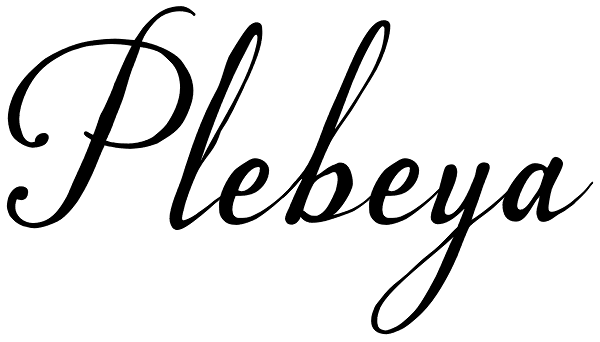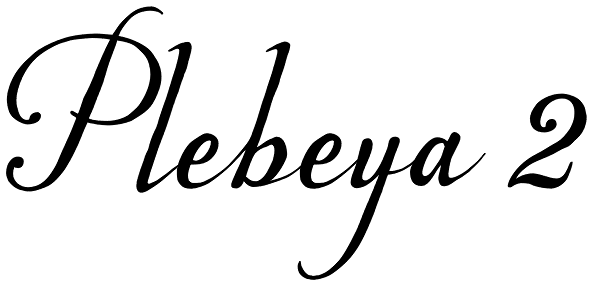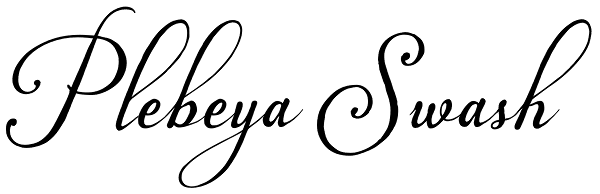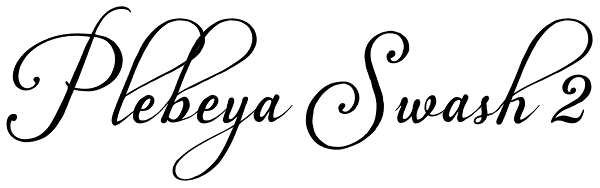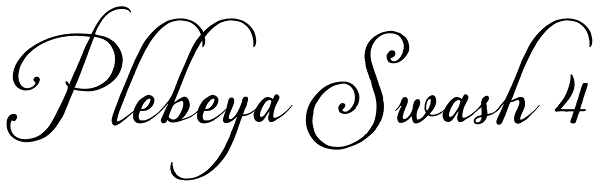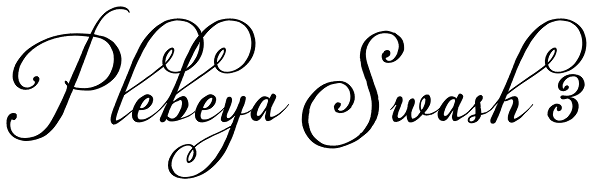
Plebeya
Following the huge success of Legendary, Manuel Corradine proudly introduces his new ornamented script font. He remarks: “Designing Plebeya was a very tough and exhausting process, but learning to use it correctly and harnessing its whole potential...
Plebeya Swash Caps
Plebeya 2
Plebeya Swash
Plebeya Pro
Plebeya Swash 2
Plebeya Swash 4
Plebeya Swash 3